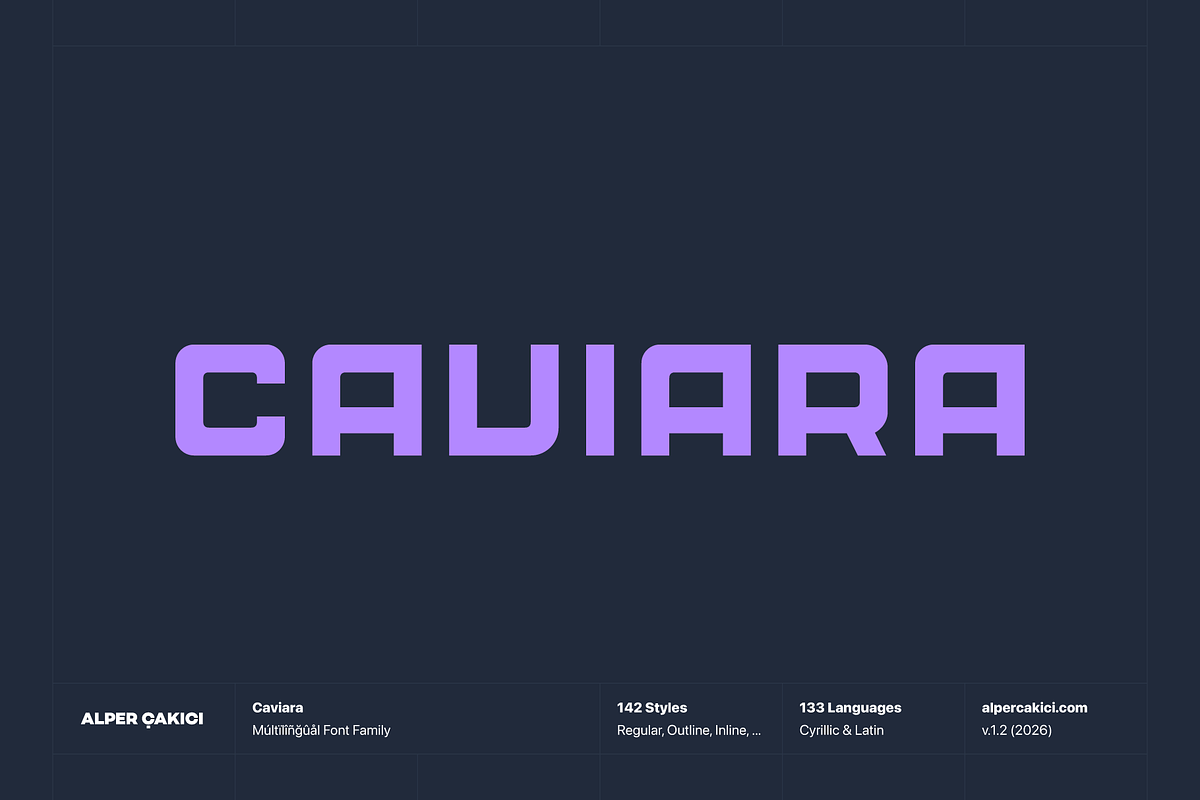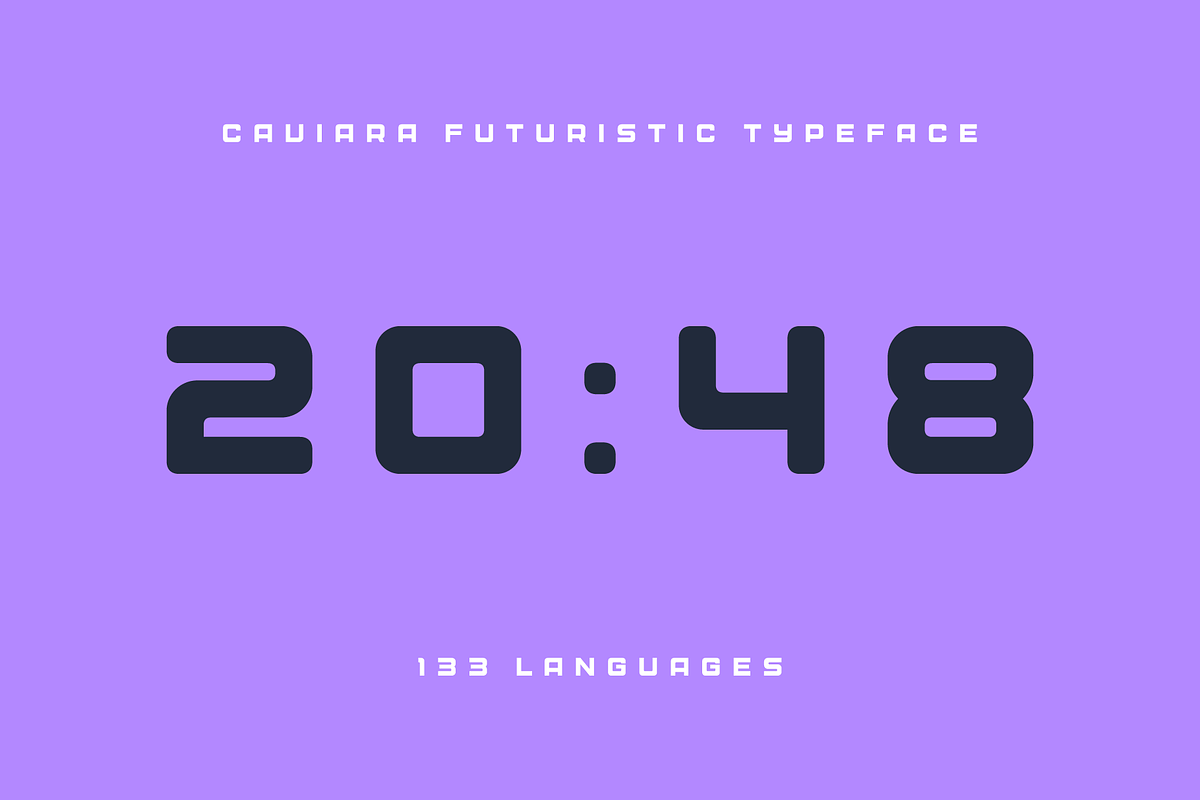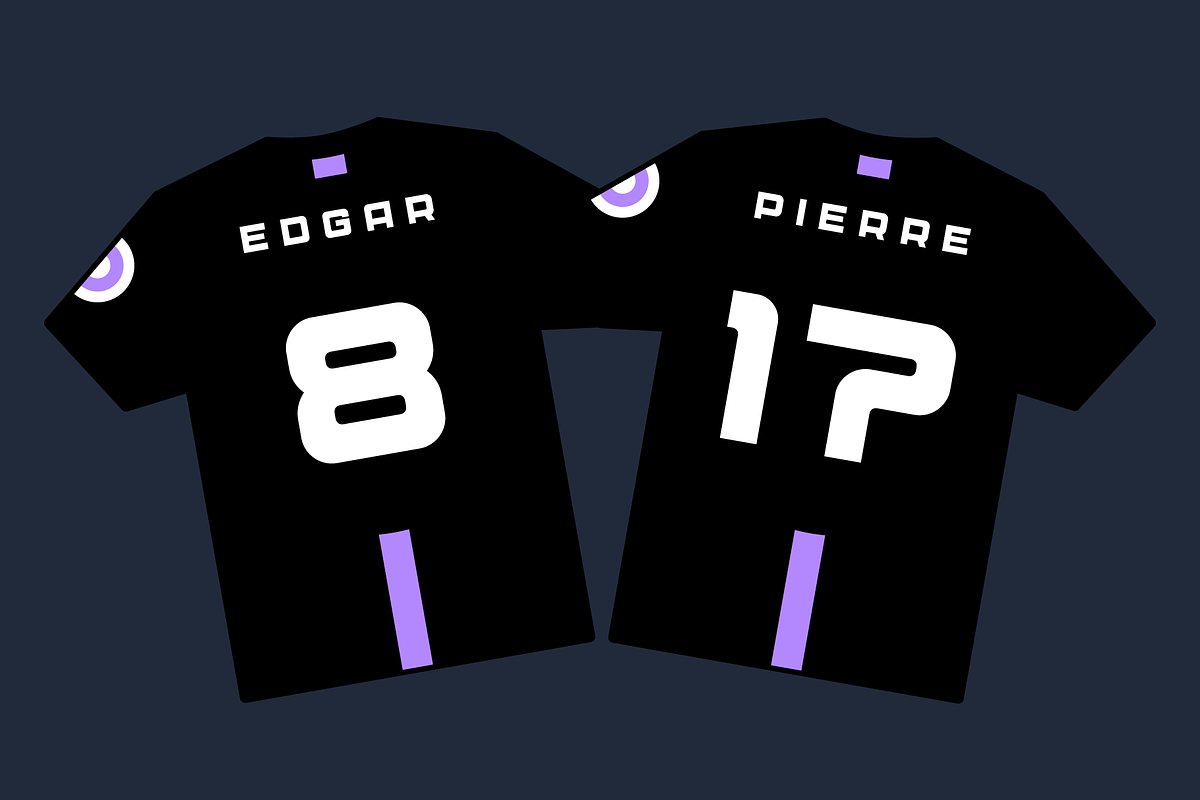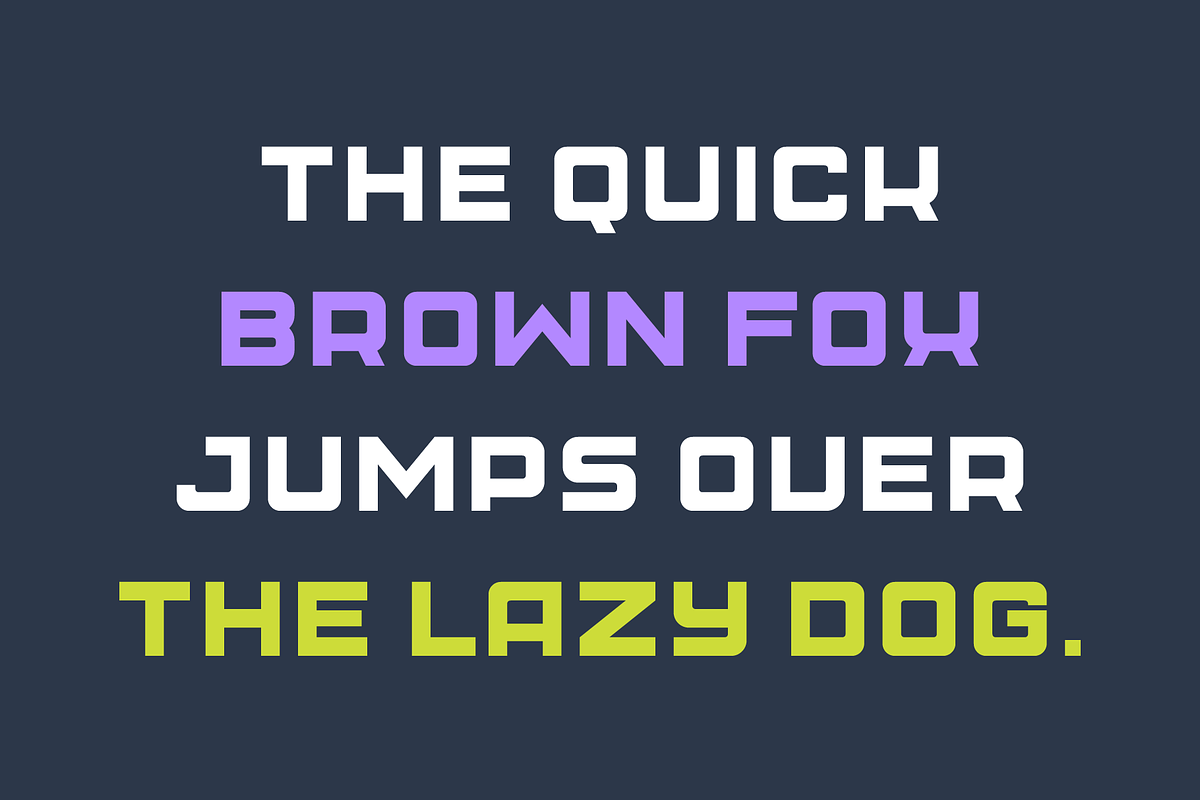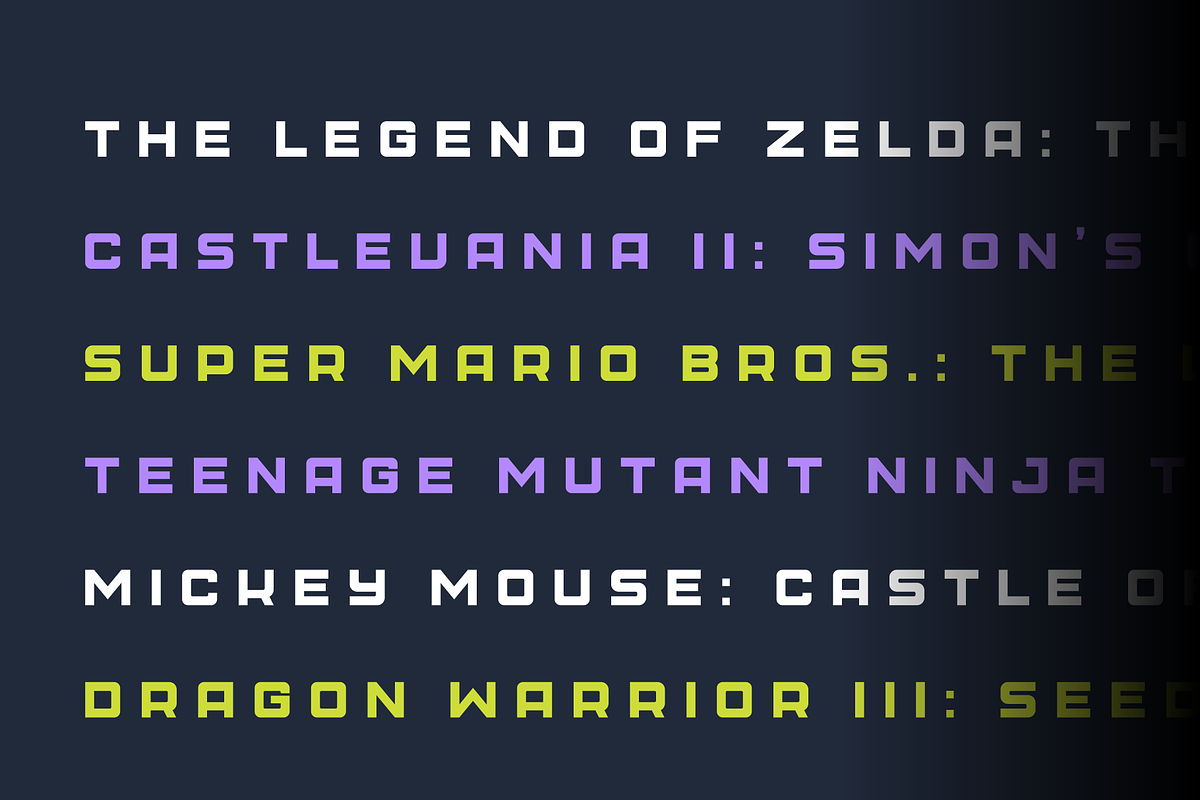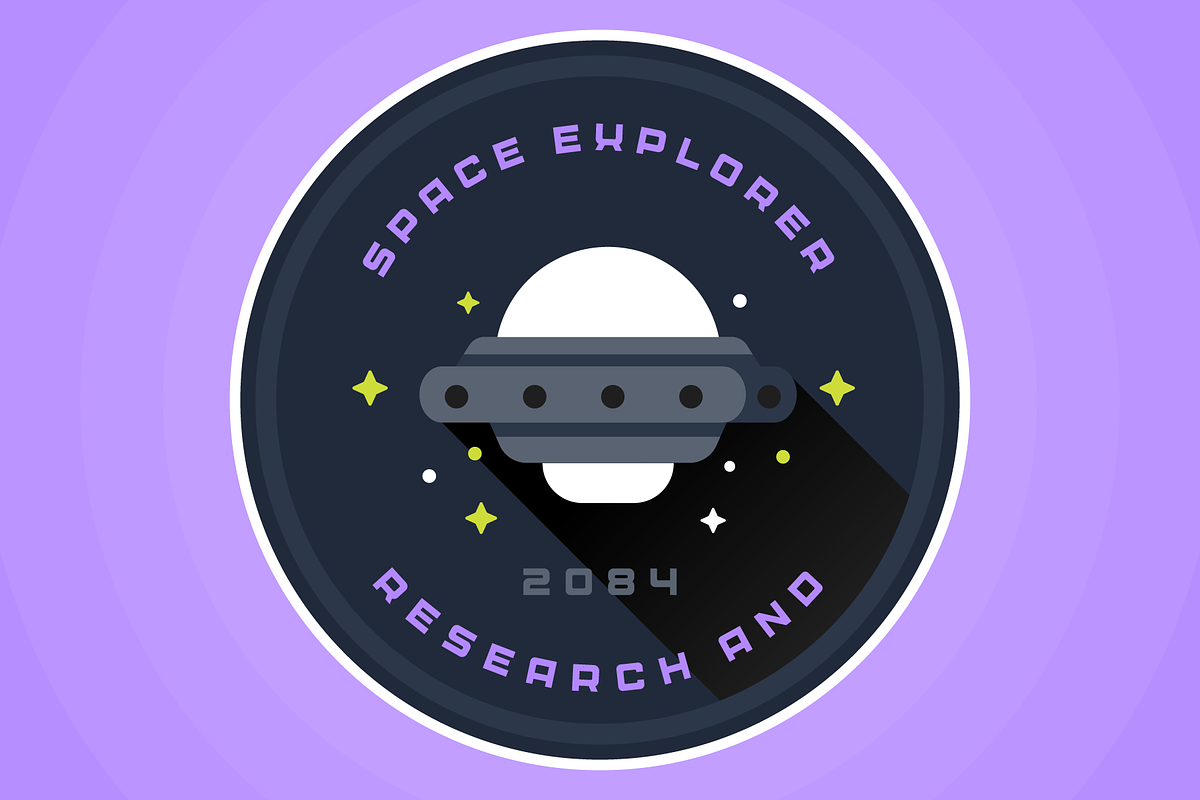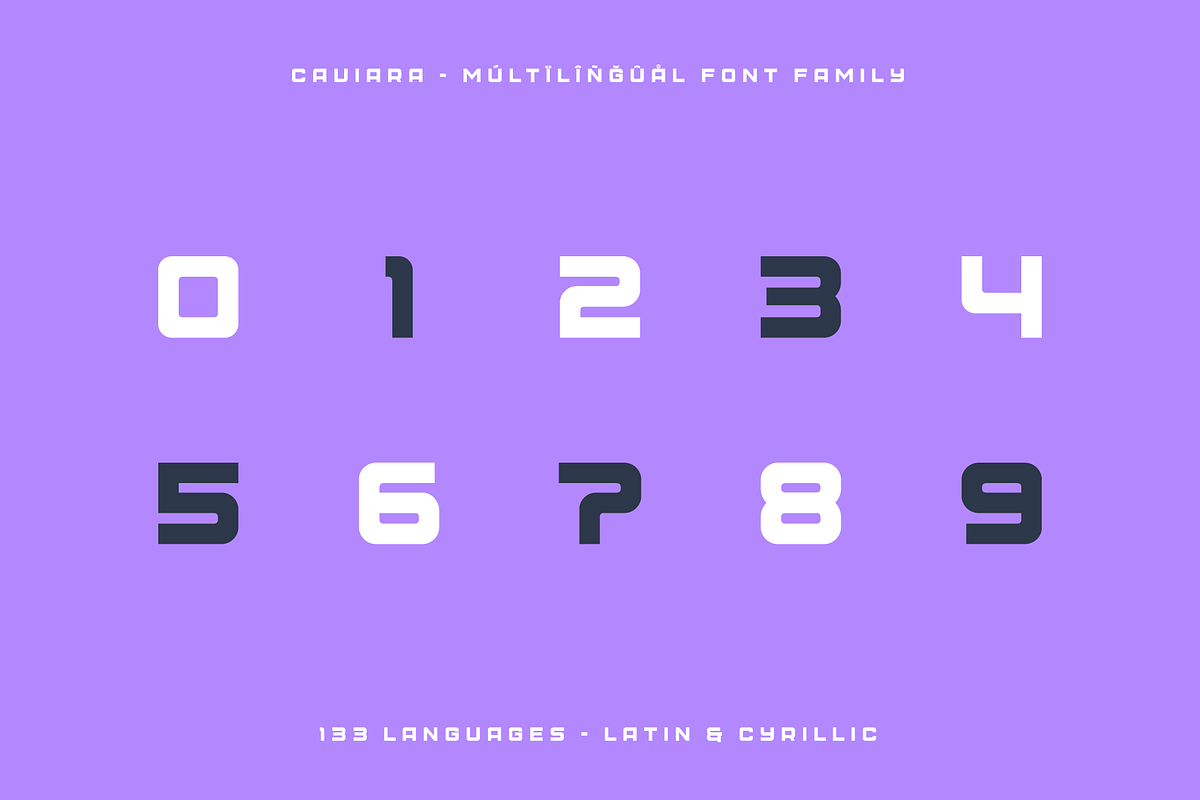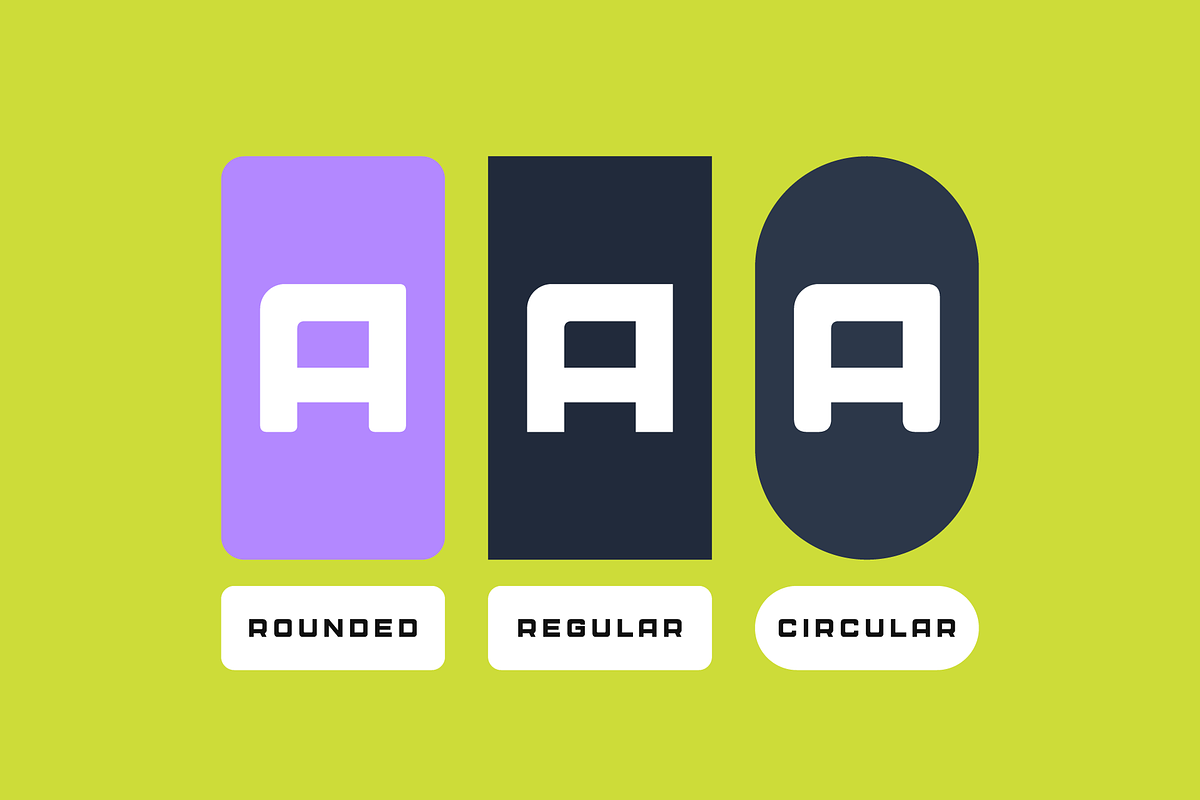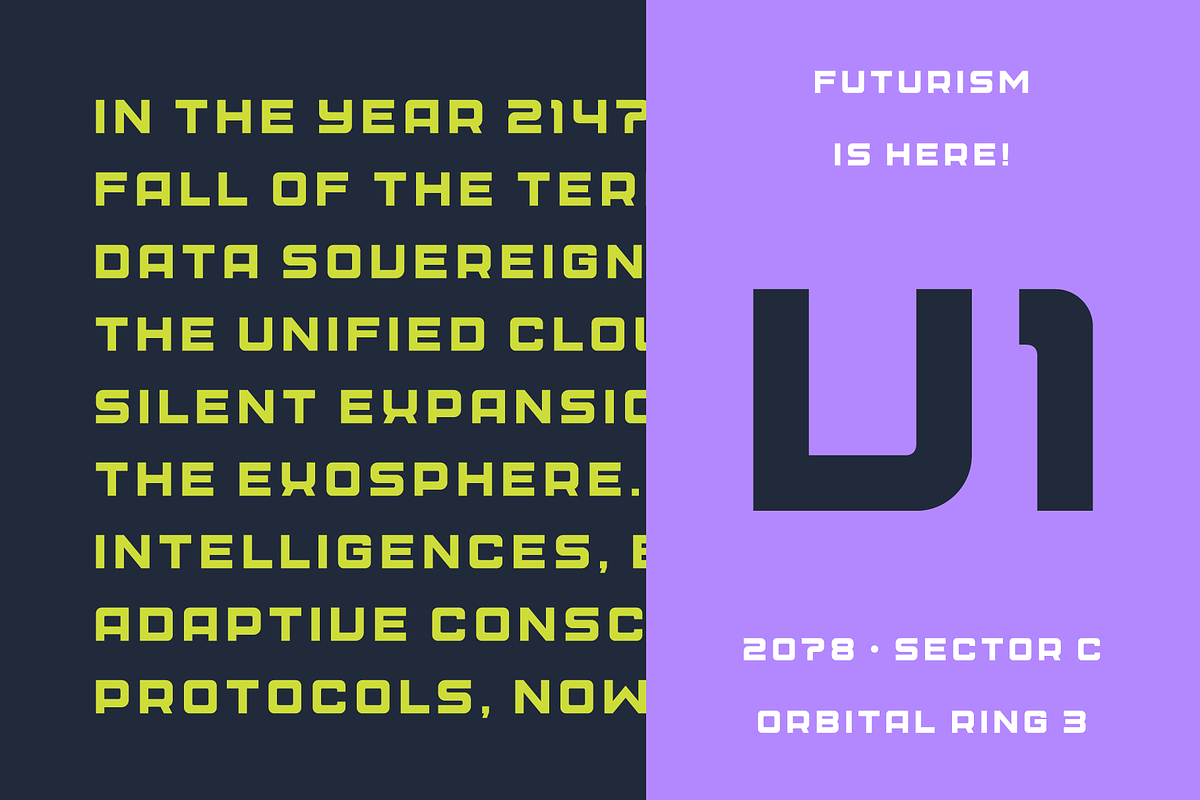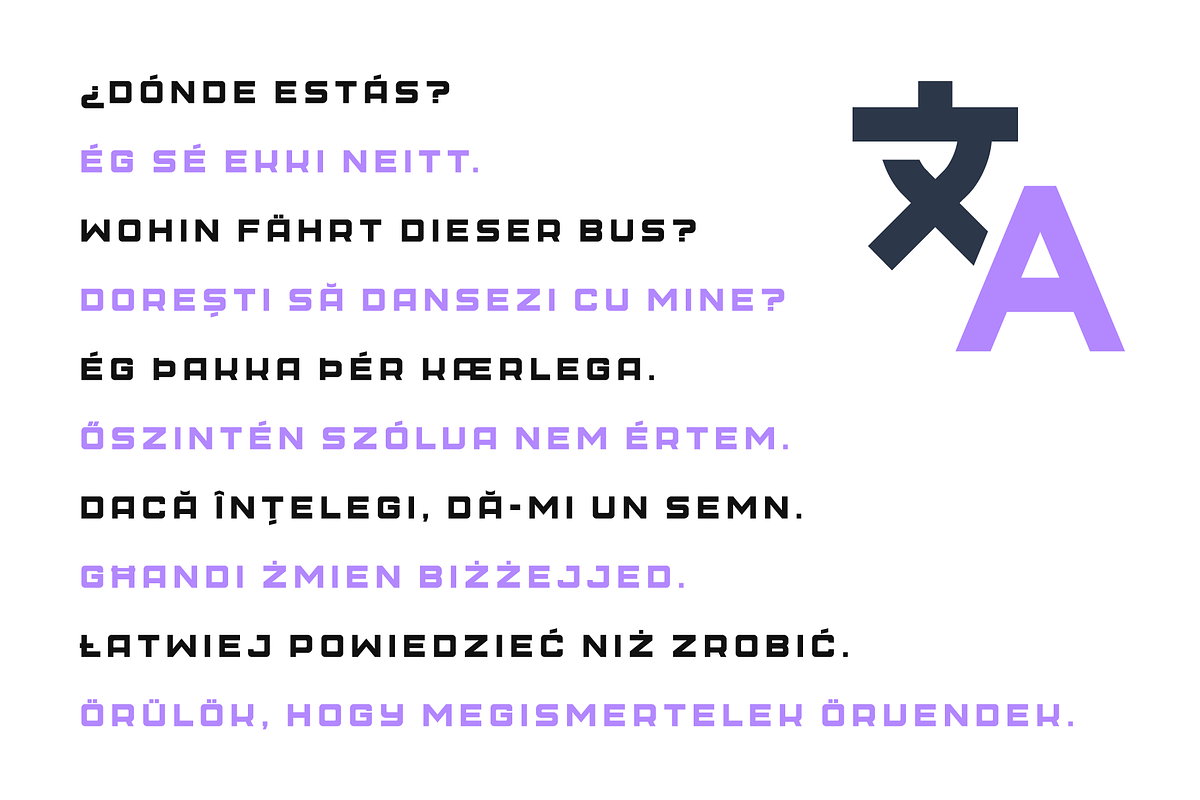
Caviara Wide Sans Serif Typeface
Caviara is a bold, wide sans serif inspired by the iconic geometry of classic digital-era logotypes. With its structured proportions and confident stance, it delivers a strong visual presence while remaining highly versatile across branding, editorial, and display use.
The family is built as an extensive system featuring three core styles—Regular, Rounded, and Circular—each offering a distinct personality. Regular provides a sharp and technical tone, Rounded softens the edges for a friendly and approachable feel, while Circular emphasizes smooth geometry for a modern, futuristic aesthetic.
Caviara expands far beyond a standard type family. With 142 styles, it explores a wide range of expressive textures including Aged, Brush, Chalk, Dry, Edgy, Grainy, Gritty, Hazy, Inline, Outline, Pencil, Rough, Rusty, Sketchy, Traced, Worn, and more. Many styles are paired with italic counterparts, along with shadowed and inline variations, giving designers a massive toolkit for creative experimentation. Supporting both Latin and Cyrillic scripts, Caviara ensures broad language coverage and global usability. With 468 glyphs per font, it is well-equipped for professional typography needs.
Whether you're building a bold logotype, crafting retro-futuristic visuals, or adding textured depth to your designs, Caviara delivers flexibility, personality, and impact in every style.